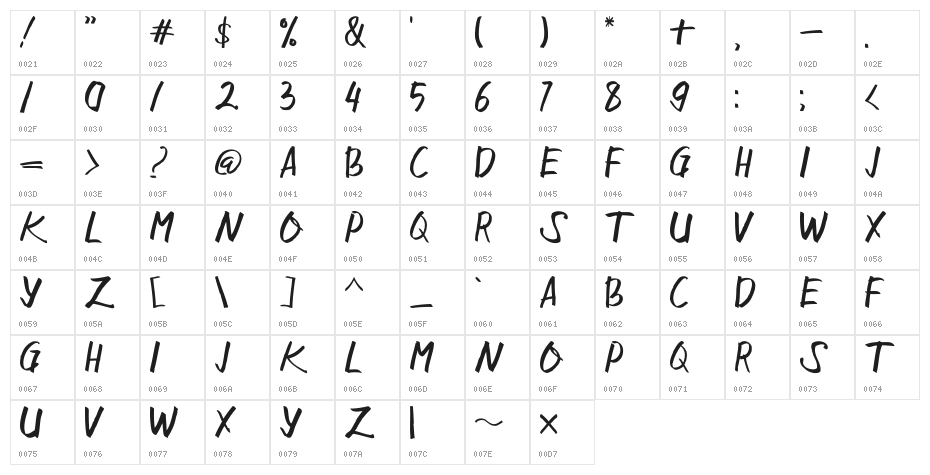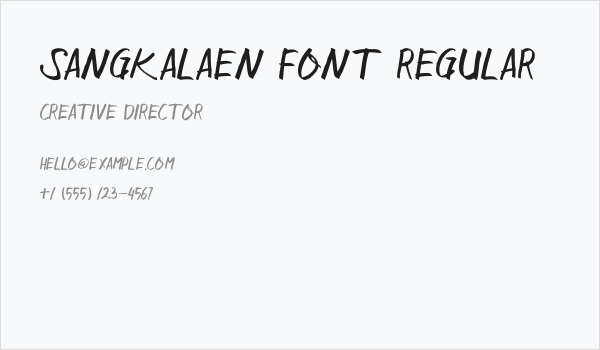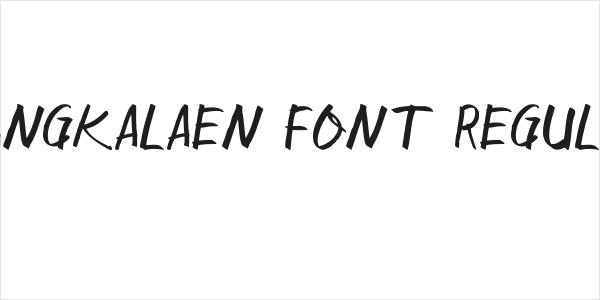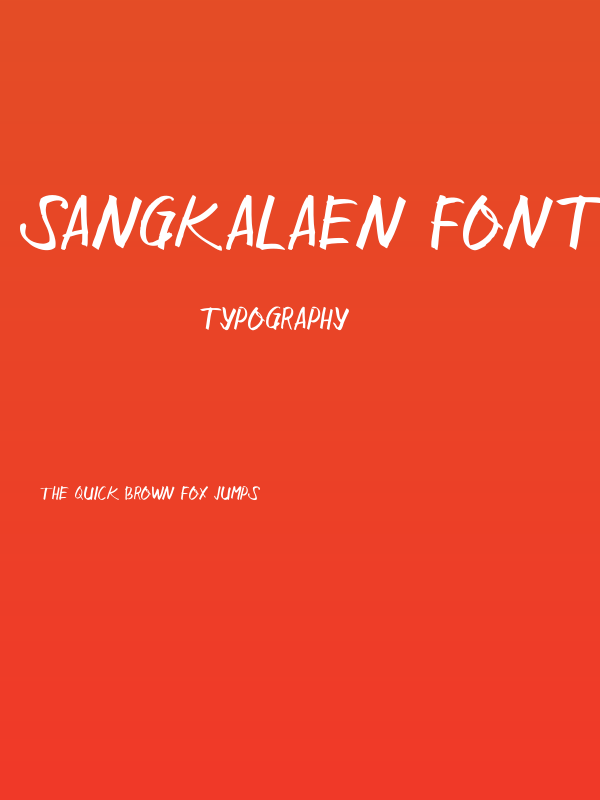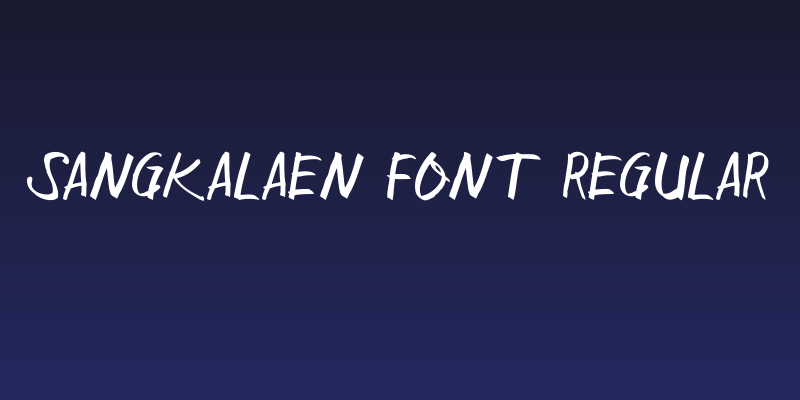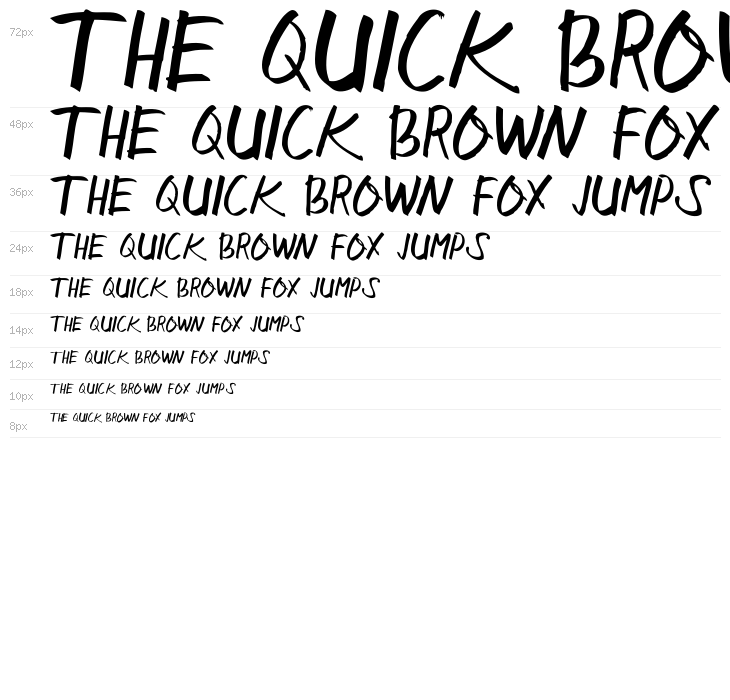
Sangkalaen Font Regular Font
Sangkalaen Font Regular Description
This font features a bold and dynamic handwritten style, characterized by its energetic and slightly irregular strokes. The letters have a playful and casual appearance, with varying thicknesses that add to its lively feel. The uppercase and lowercase letters maintain a consistent style, while the numerals and special characters complement the overall design. The font's unique personality makes it suitable for projects that require a personal touch or a sense of spontaneity.
| Proposed Projects | Ideal for greeting cards, posters, branding projects, and social media graphics that require a personal and lively touch. |